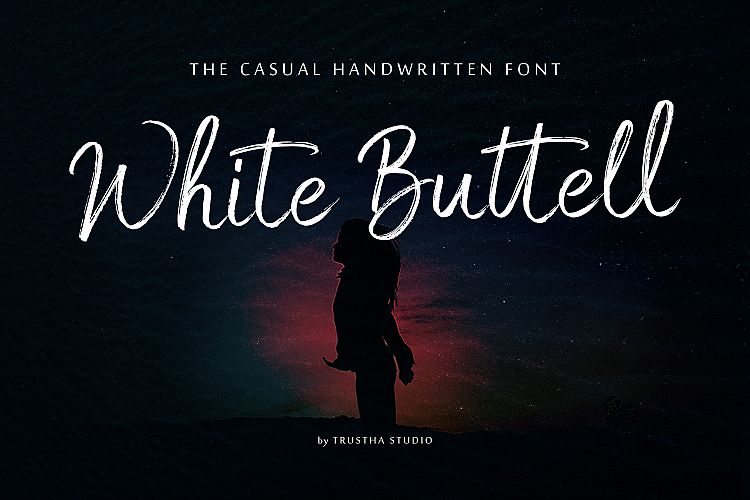
White Buttell Brush Font
Hello Guys! Let this melody of a font transport your designs to a higher sound, or just use this because you love it and it’s rad! Introducing White Buttell Font. White Buttell Brush Font is a handwritten brush script font. It has a natural style of dry marker which makes it perfect for branding, advertising, poster design, logo, book covers, magazines, packaging, website headers, greeting cards, apparel designs, merchandise, fashion campaigns, newsletters, album covers, and quote designs and more.